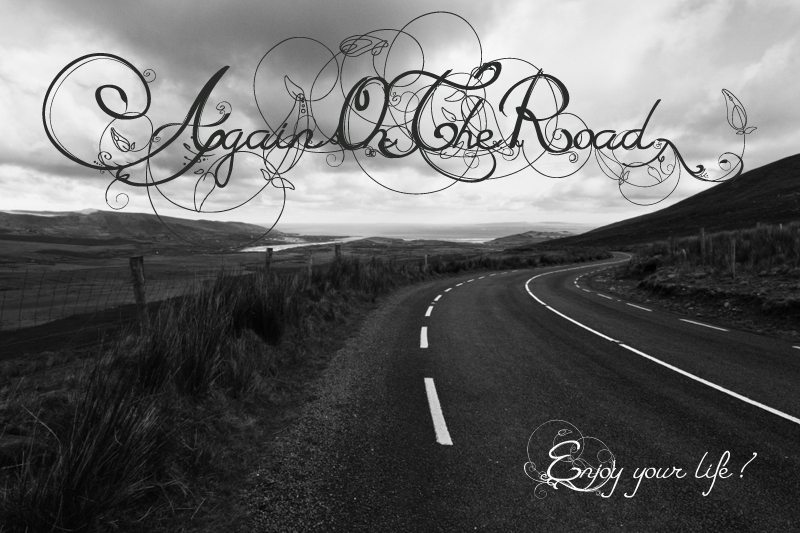
Eternal Call by Maelle.K is a free calligraphic script shaped by sweeping letterforms and an unusually dense web of flourishes. Hairline loops cross broad, dark strokes in restless ornamental penwork.
Wedding invitations are its strongest setting, especially for names and ceremonial headings that can absorb the dramatic swashes. Perfume packaging and fashion branding gain an opulent, editorial edge from the curling lines, which can echo ribbons, filigree, or engraved decoration. Album covers and theatrical posters offer another home for the font's dramatic dark curves and finely drawn tangles.